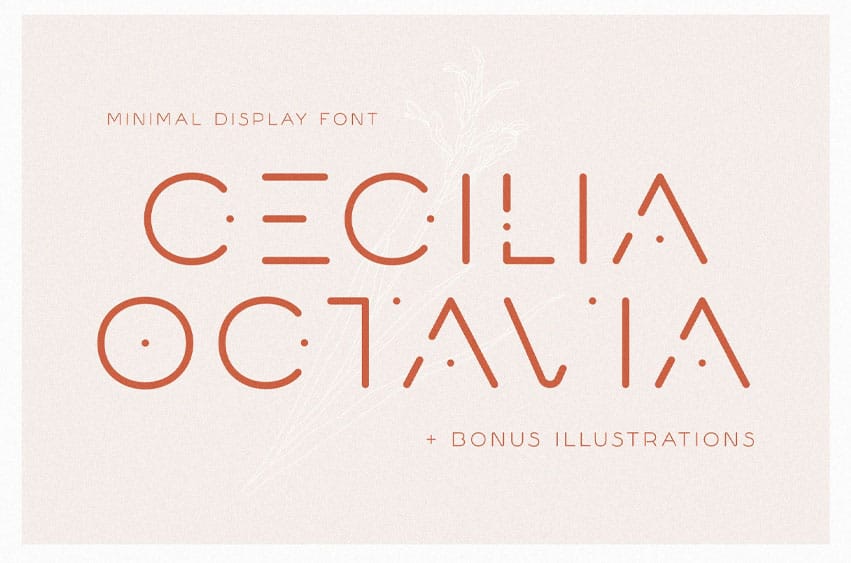
Cecilia Octavia Font is a minimal sans-serif font with modern and elegant vibes. Its soft curves are slightly feminine and luxurious, but it also makes it extremely legible while maintaining a unique character style.
This is a perfect font for modern logos, monograms, attention-grabbing headlines, and invitations. The package includes two weights altogether – regular and bold. Regular weight is perfect for all kinds of minimal designs, especially if you add tracking. Bold weight is perfect for titles and headlines. The font is also multilingual and comes with a set of special glyphs.